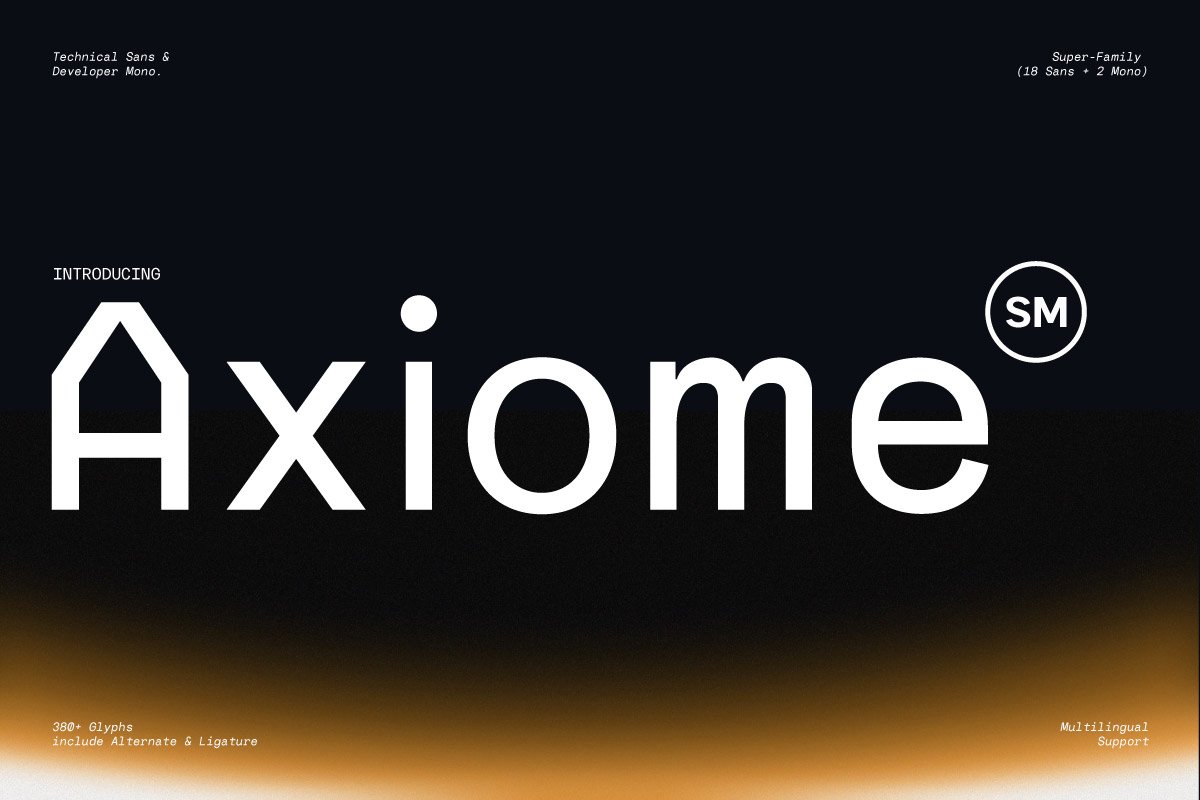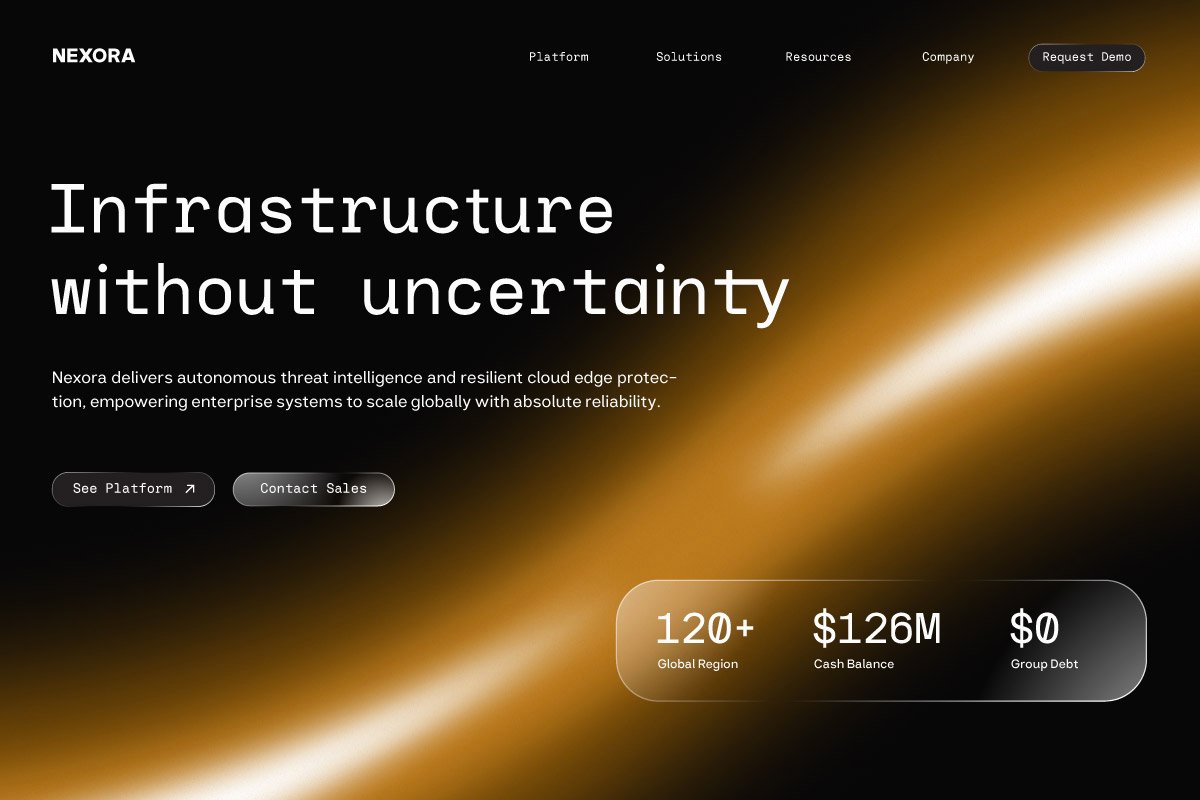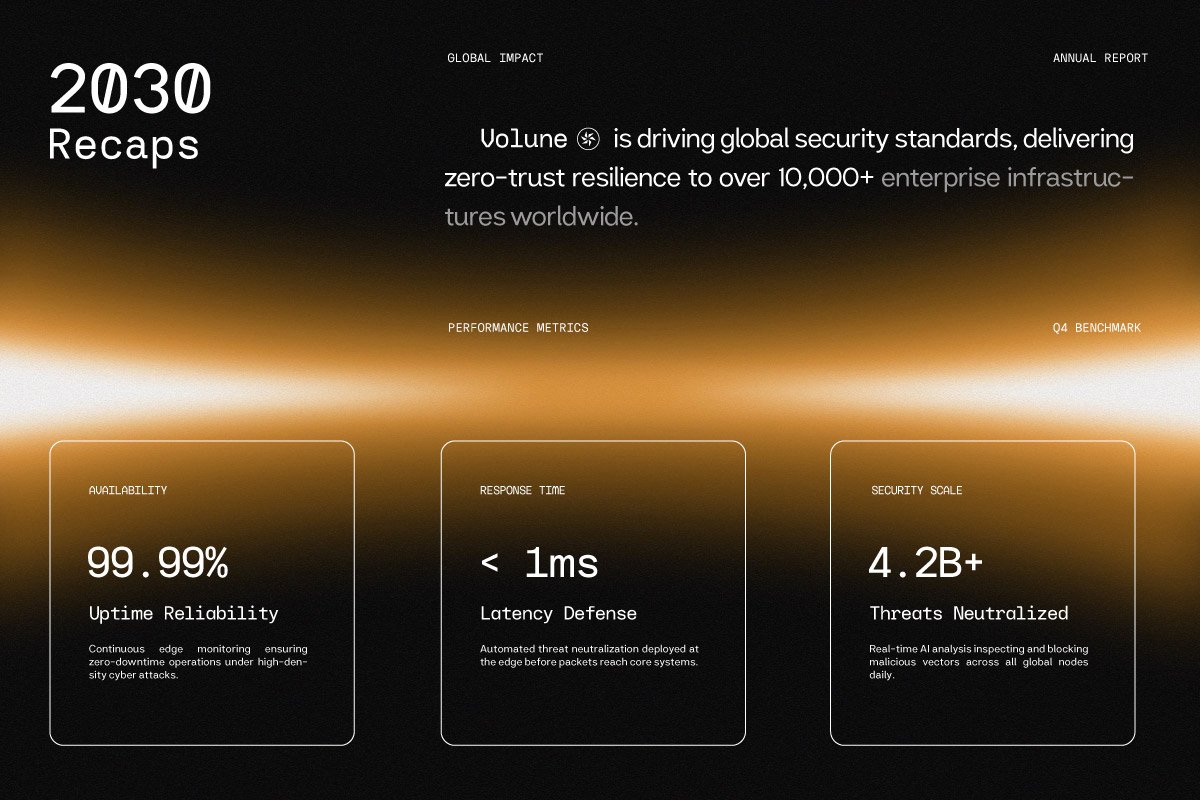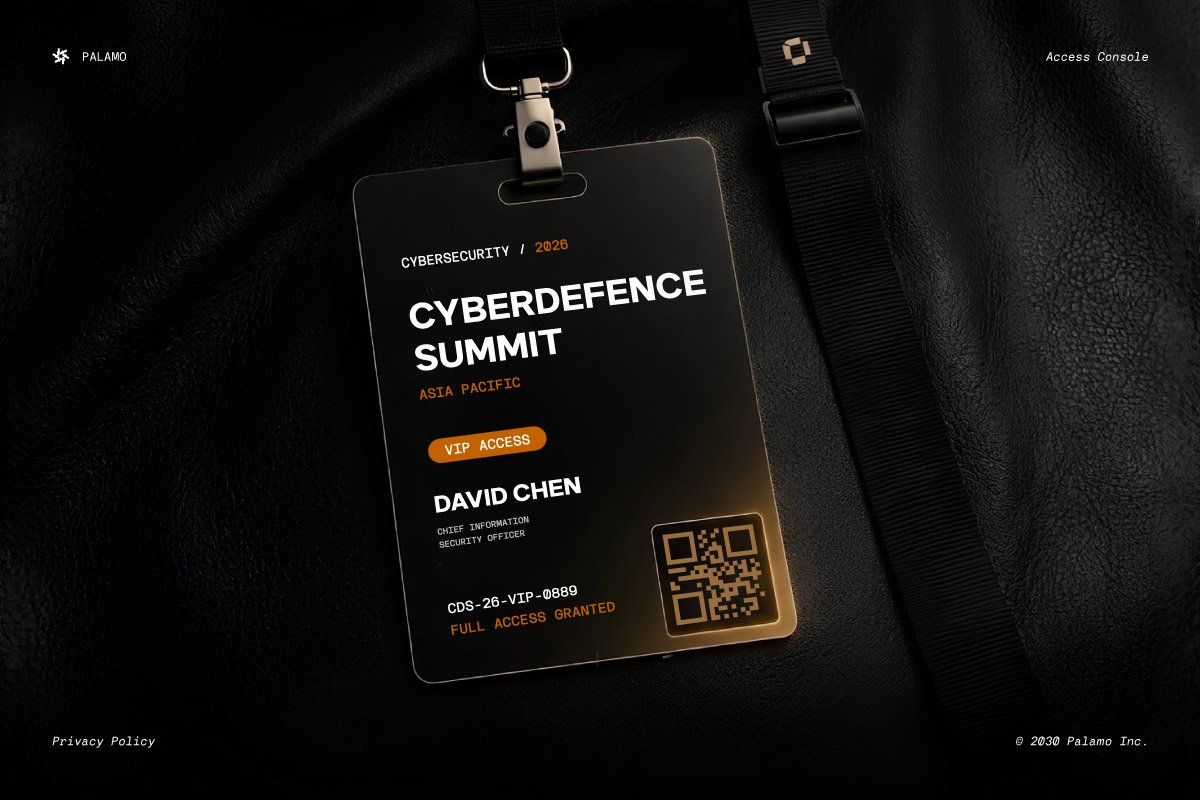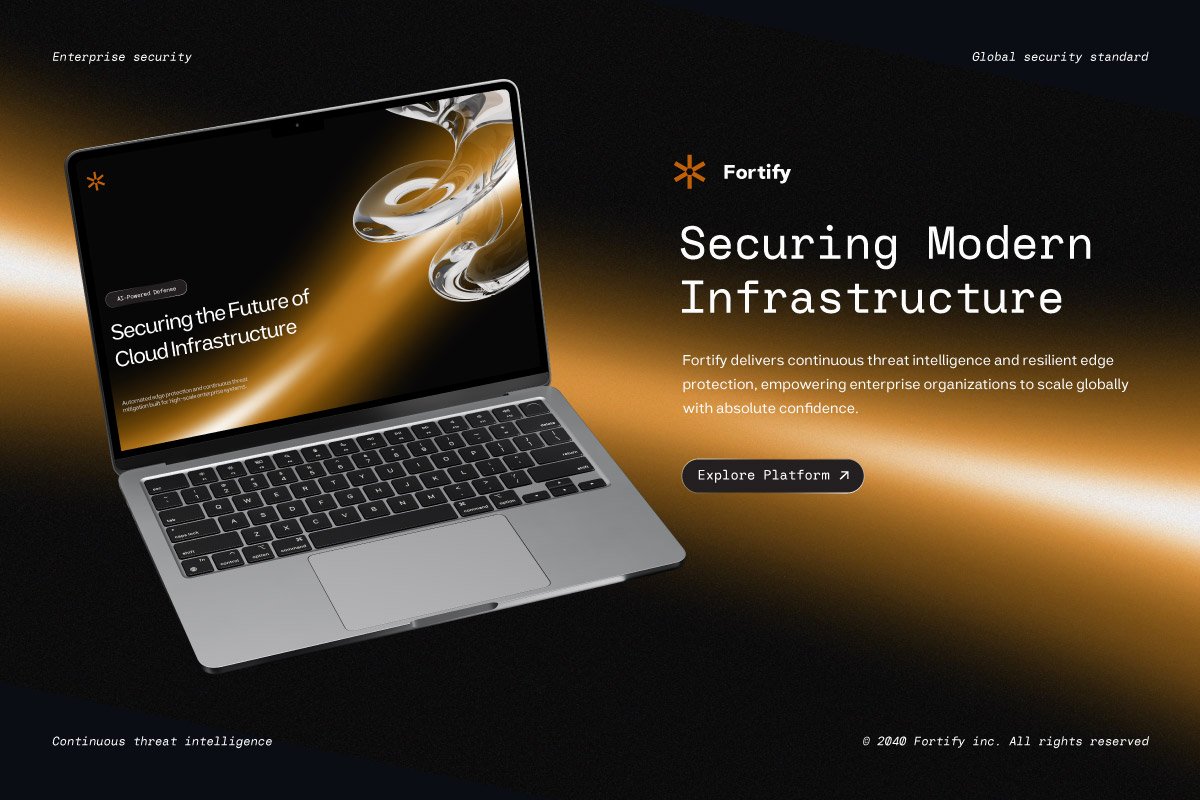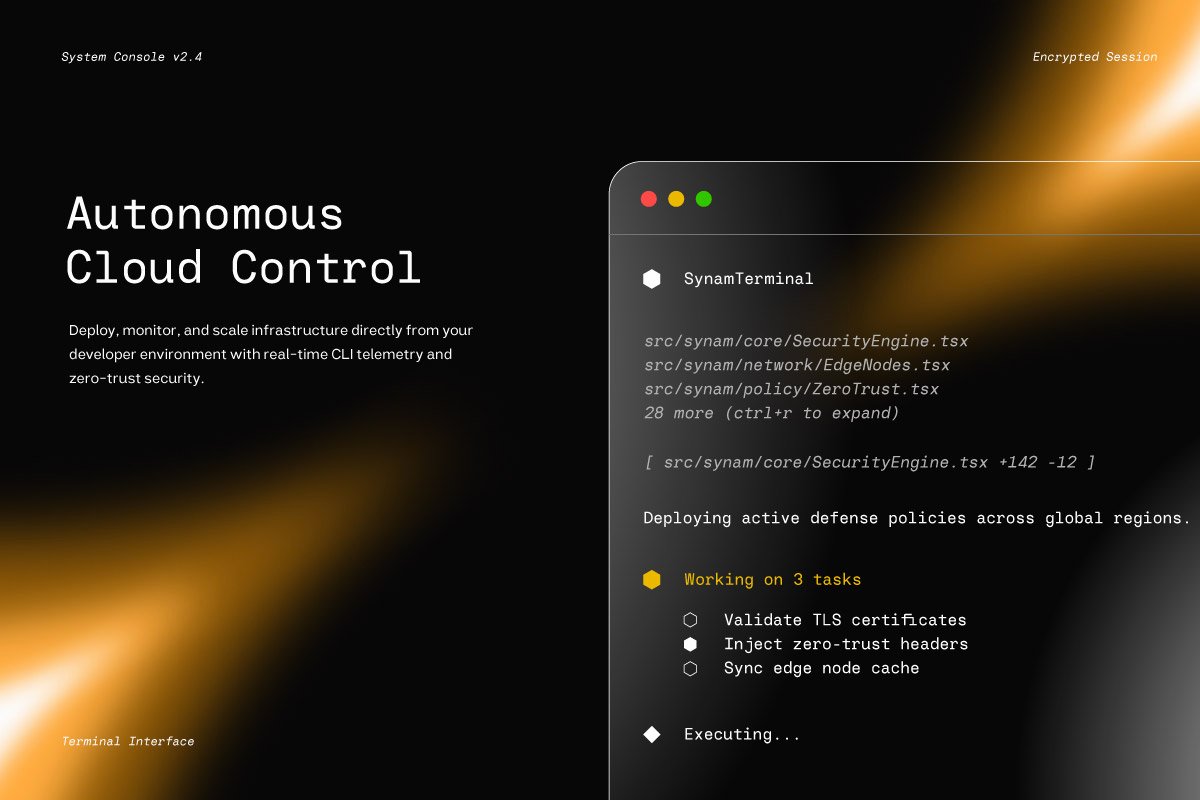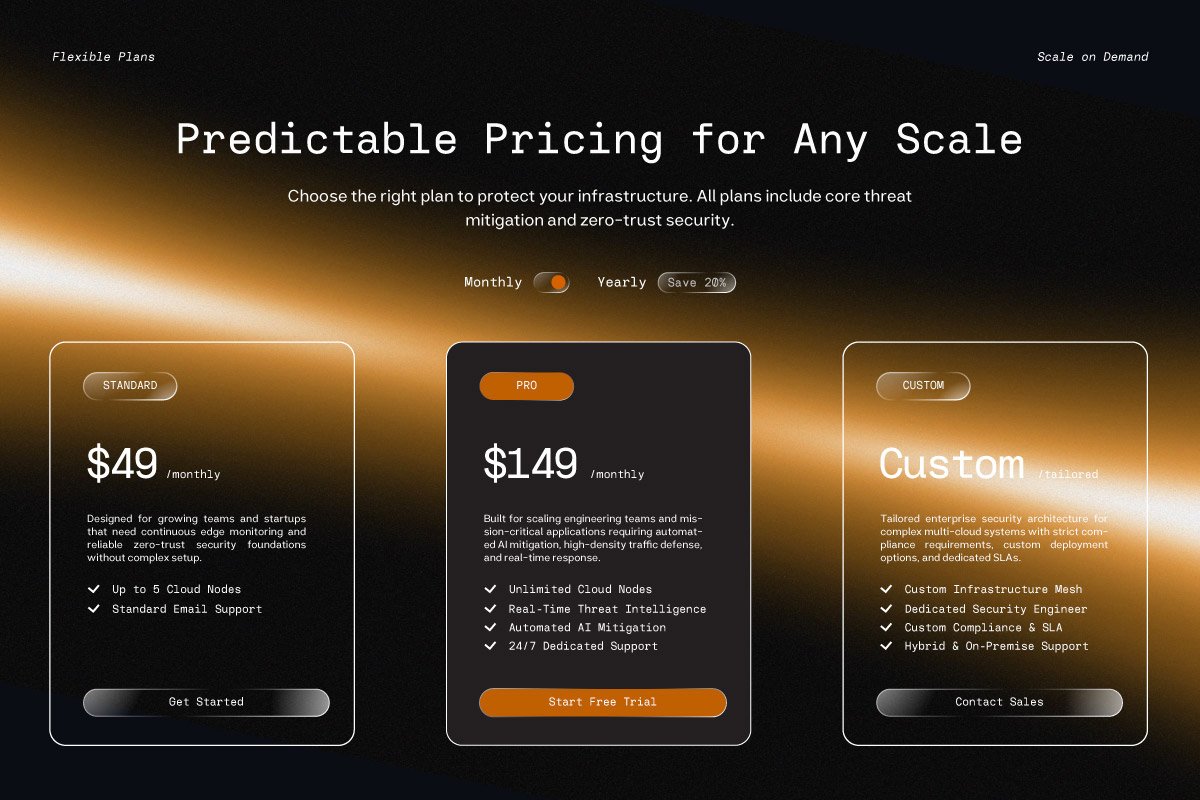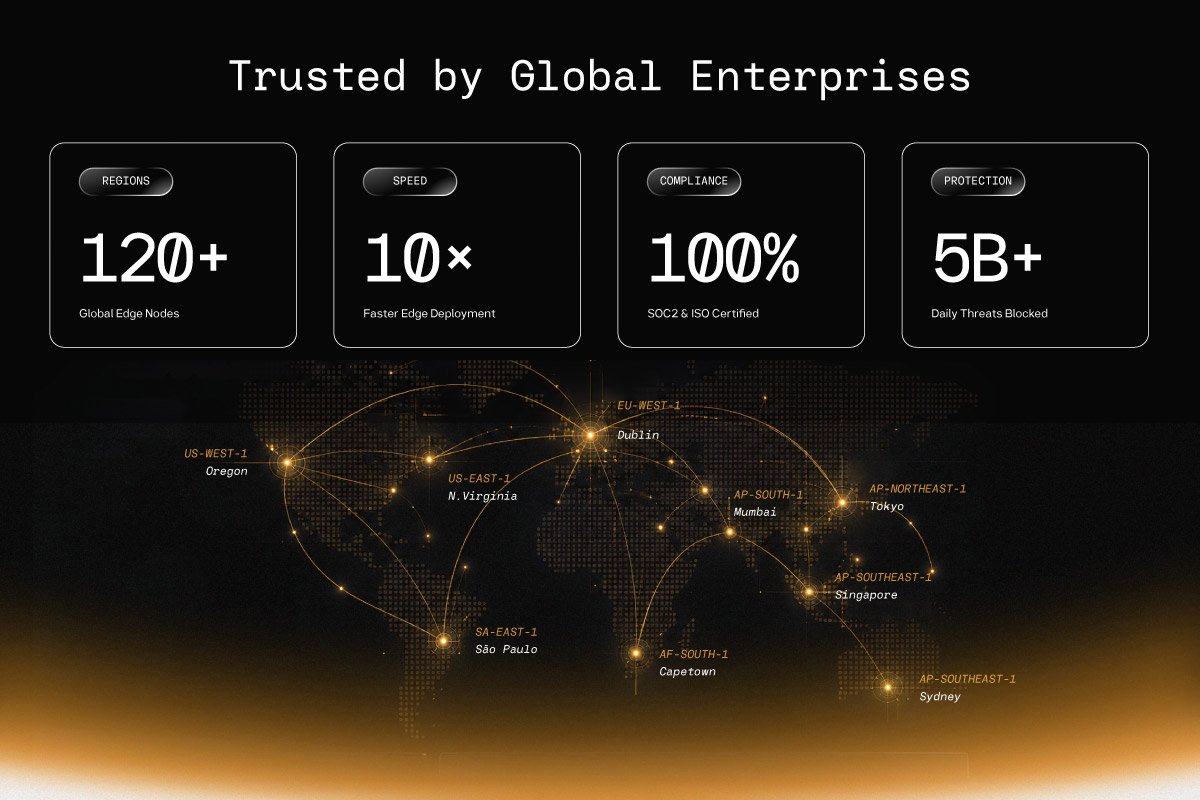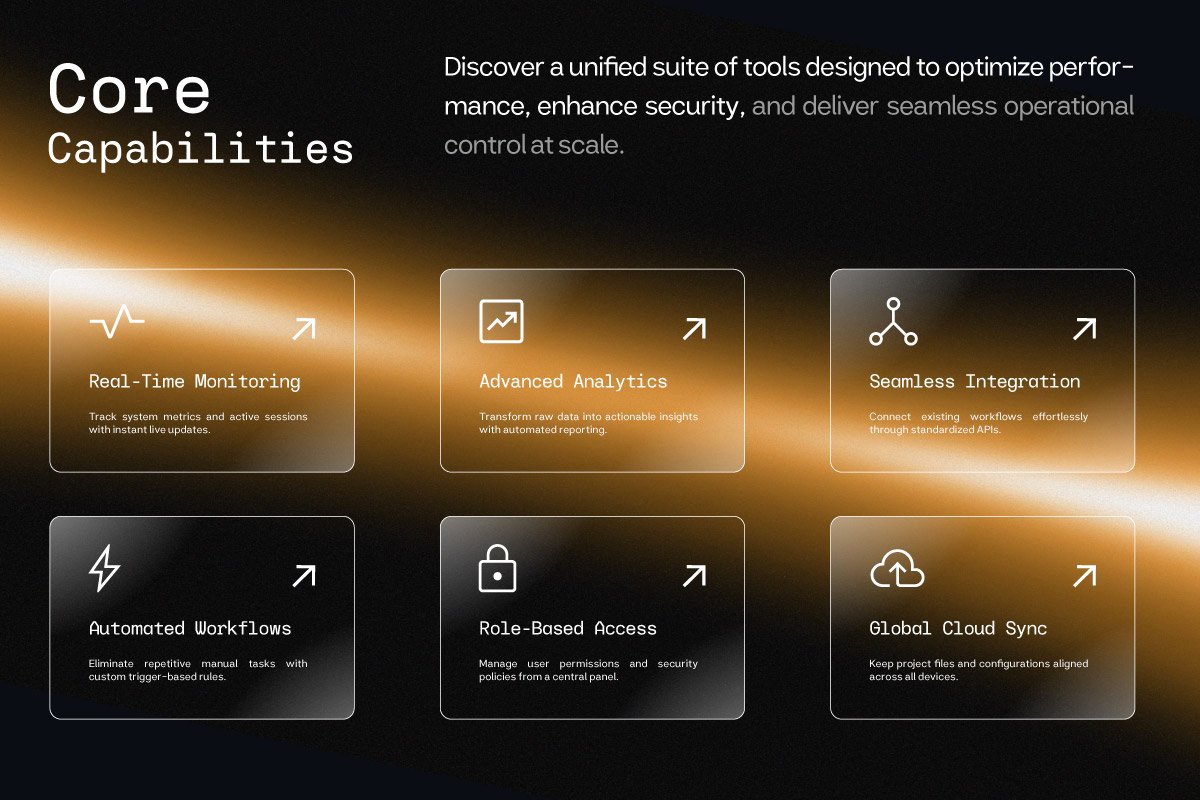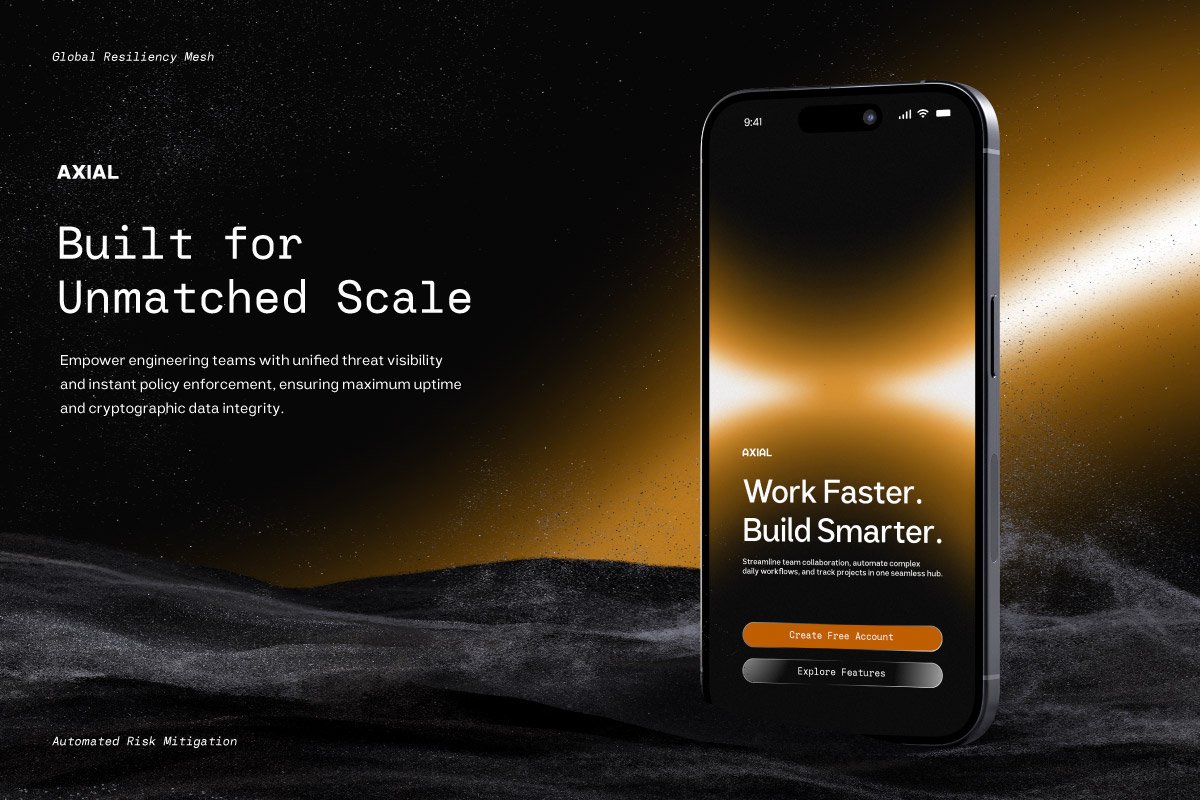
- Axiome SM – Technical Sans & Developer Mono
Axiome SM is a modern technical sans and developer mono font family designed for cybersecurity, cloud infrastructure, threat intelligence, and next-generation technology branding. Its clean geometric forms and precise character make it ideal for digital products, software platforms, and professional tech identities.
Built for clarity and versatility, Axiome SM works beautifully across SaaS websites, developer tools, dashboards, applications, presentations, and startup branding. The combination of Sans and Mono styles gives your projects a cohesive visual system for both headlines and technical content.
Perfect for technology companies, cybersecurity platforms, cloud services, blockchain projects, and developer-focused brands, Axiome SM brings a futuristic yet professional feel to every interface and visual communication.